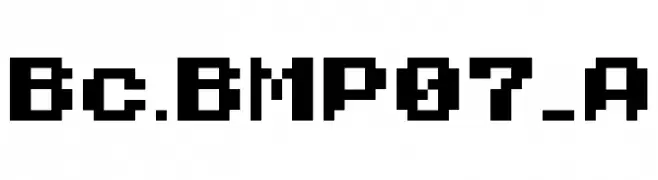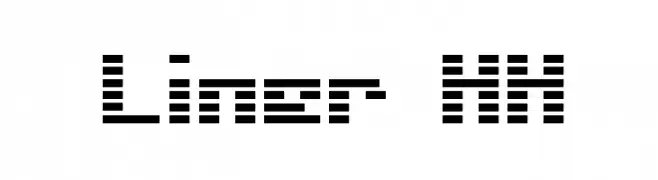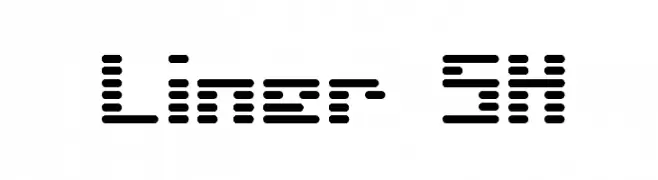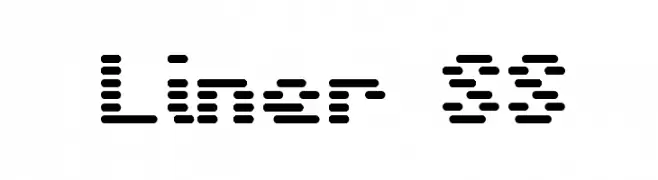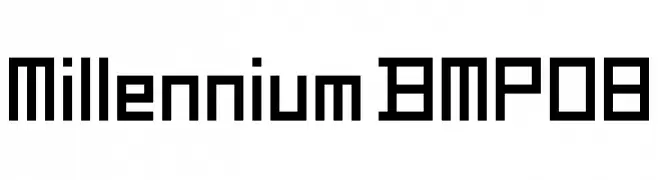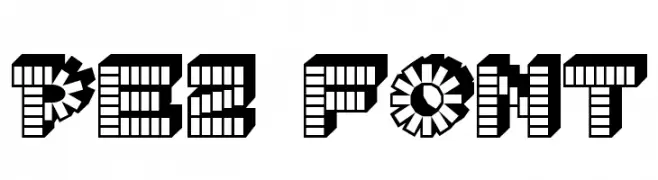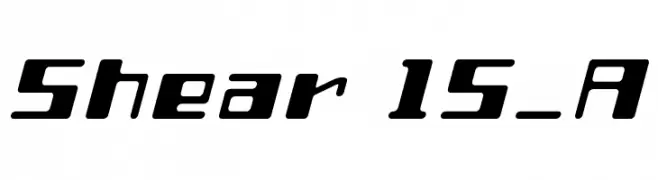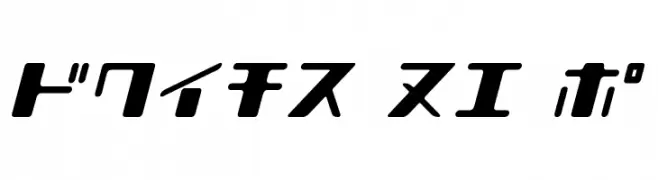
A bold, pixelated font with a retro digital style.
A segmented, linear font with a modern, digital aesthetic.
A dot matrix style font with a modern, digital aesthetic.
A digital-inspired font with horizontal line construction, offering a futuristic and tech-savvy look.
A dot-matrix style font with a futuristic, tech-inspired design.
A pixelated, retro-style font with blocky, geometric shapes and uniform stroke width.
A bold, three-dimensional block font with a playful, geometric design.
A modern, slanted font with bold, geometric characters.
A bold, slanted font with a geometric and modern design.